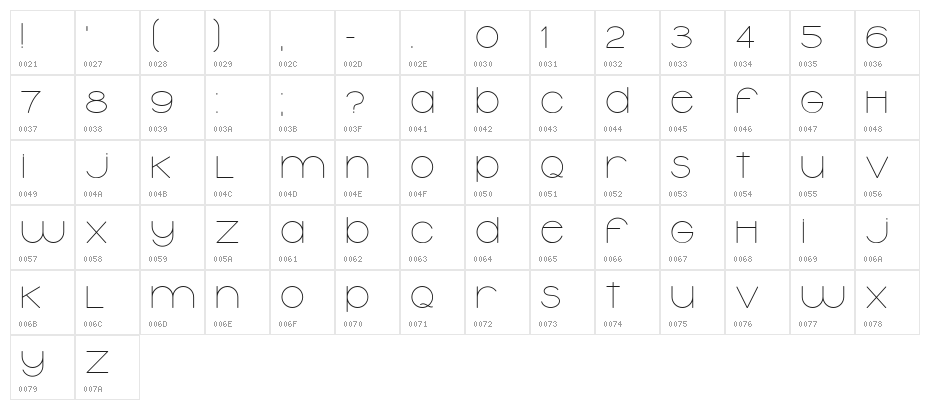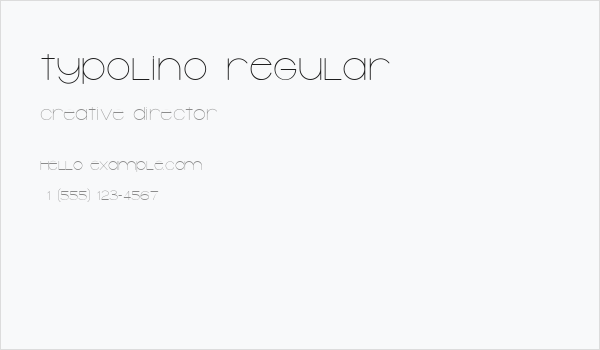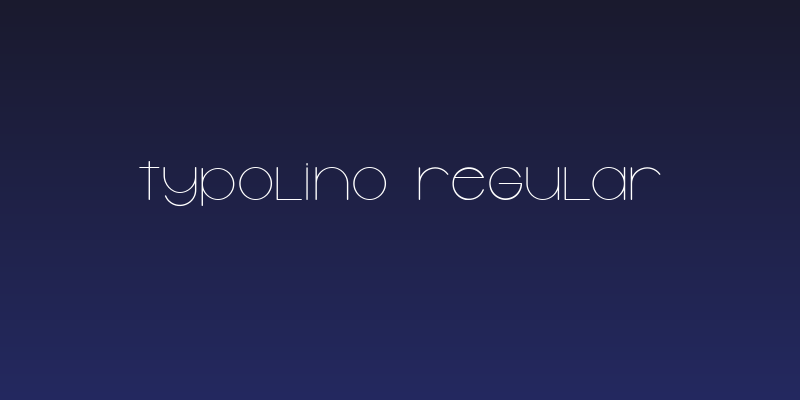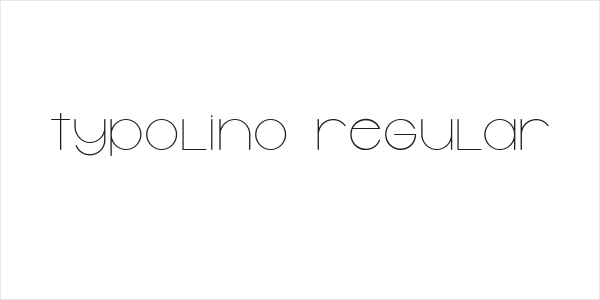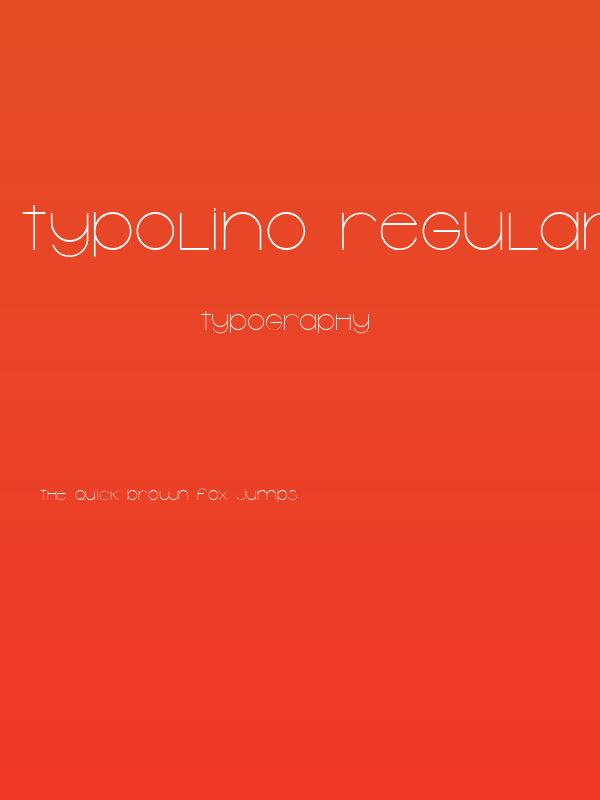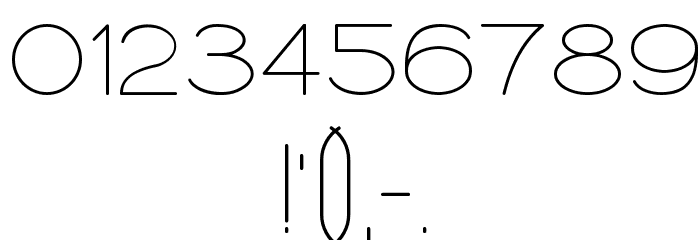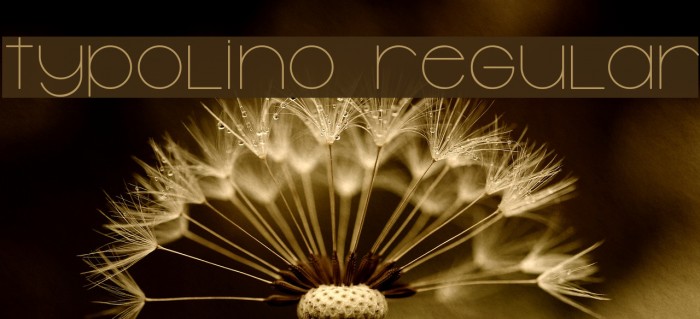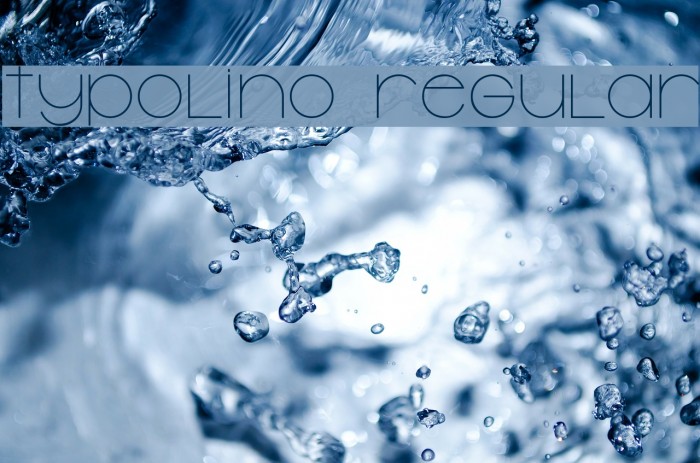
Typolino Regular Font
Typolino Regular Description
This font features a sleek, modern design with thin, uniform lines that create a minimalist and elegant appearance. The characters are rounded and geometric, giving a sense of precision and clarity. The uppercase and lowercase letters maintain a consistent style, with smooth curves and a harmonious flow. The numerals are equally refined, matching the overall aesthetic with their clean lines. Special characters are designed with simplicity, enhancing the font's contemporary feel. This font is ideal for projects that require a modern and sophisticated touch.
| Proposed Projects | Ideal for branding, advertising, modern web design, and editorial layouts. |